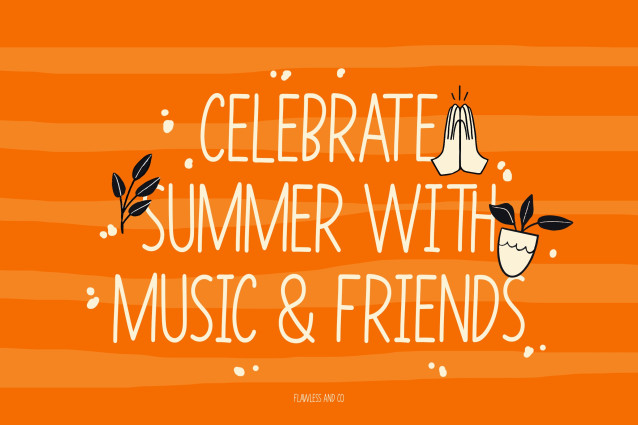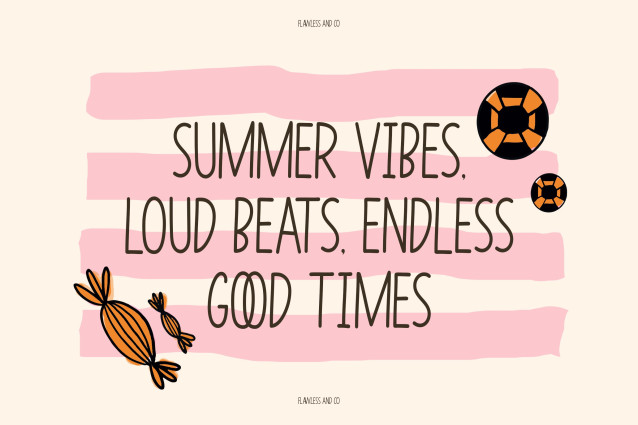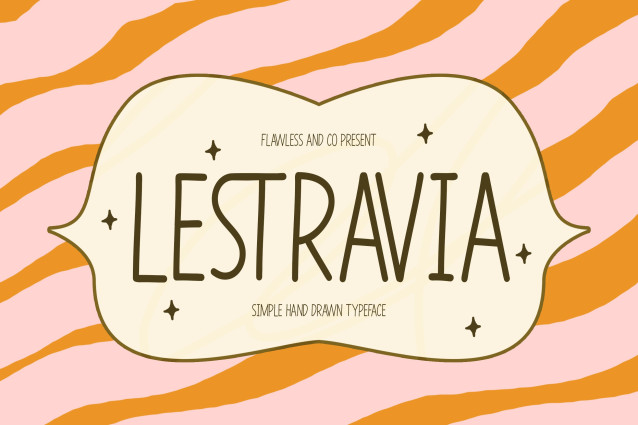
Lestravia – Simple Hand Drawn Font
Lestravia is a simple hand drawn font created to bring an authentic, relaxed, and friendly feeling to your typography. With its organic strokes, natural letterforms, and subtle handmade imperfections, Lestravia captures the charm of handwritten lettering without feeling overly decorative. Its casual personality makes every word feel warm, approachable, and effortlessly creative.
Inspired by handwritten notes, everyday sketches, and the beauty of imperfect lettering, Lestravia has a naturally expressive character that works beautifully in both minimal and playful compositions. The loose and organic shapes give your designs a human touch, making them feel less formal and more genuine.